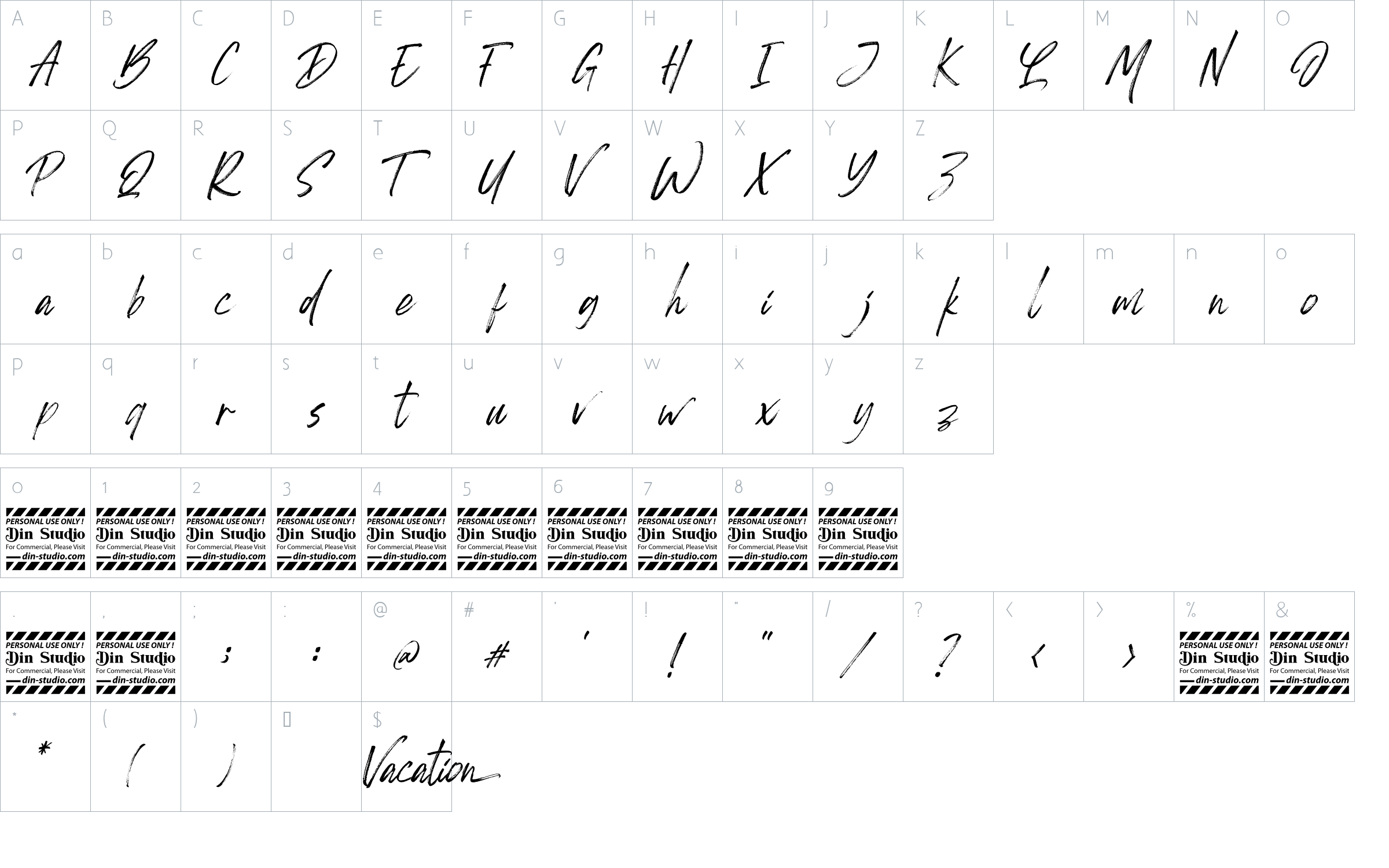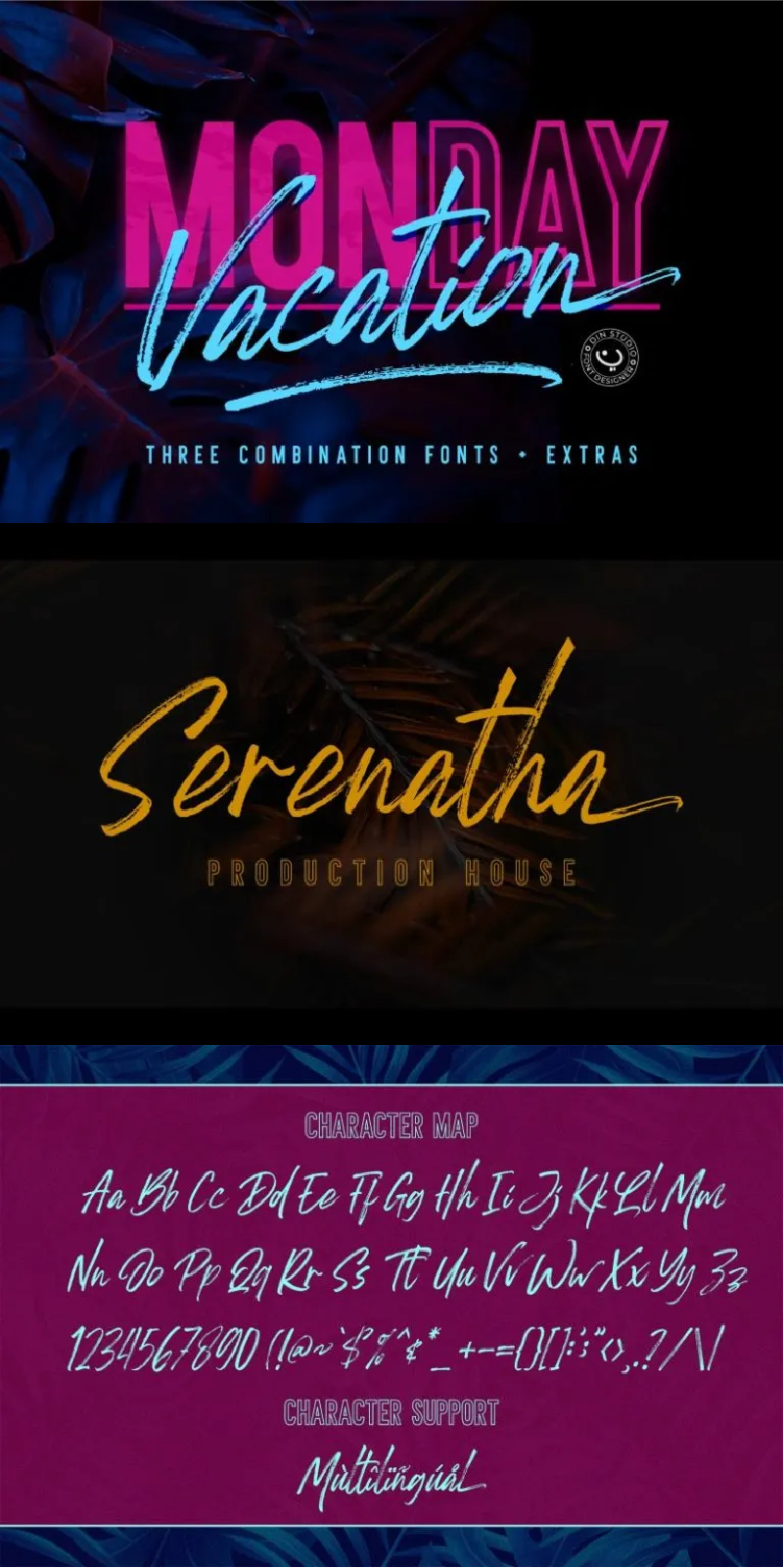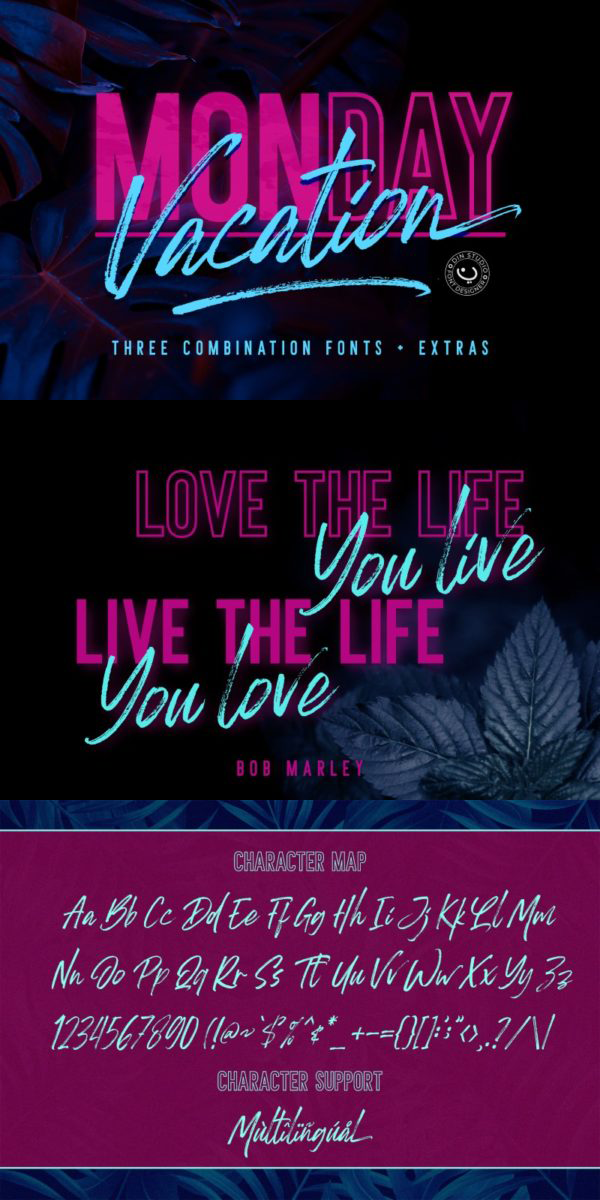
Monday Vacation Font
About Monday Vacation
Monday Vacation is a combination of brush font and sans font (Solid + outline) made with natural brush. The texture from the brush font will make your designs more beautiful and powerful which is suitable for any designs. It is suitable for brandings, quotes, t-shirt printings, logo, etc.
-Accents (Multilingual Characters)
-39 Alternates
-52 Extra Swashes
-Numerals and Punctuations (OpenType Standard)